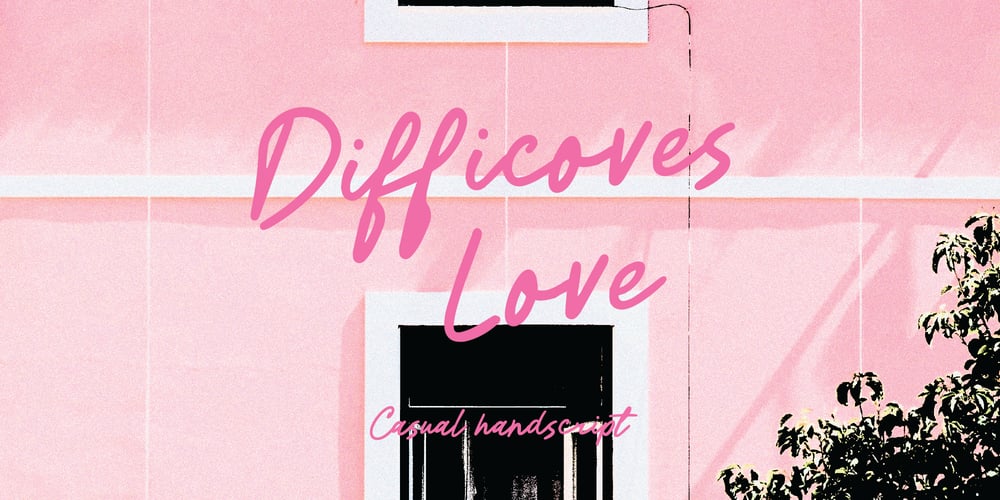
Difficoves Love Font Family was designed by Fina Fadhila Rosida, Fina Fadhila and published by Pinakiaa Studios. Difficoves Love contains 1 styles and family package options. Difficoves Love a casual handwritten script font, brimming with charm and personality. It’s the ideal choice for bakery branding, café menus, social media graphics, or any project that needs a touch of sweetness.Difficoves Love Font Features: STANDARD GLYPHS LIGATURE AND ALTERNATES MULTILINGUAL SUPPORTPlease get in touch if you have any questions! Thank you~